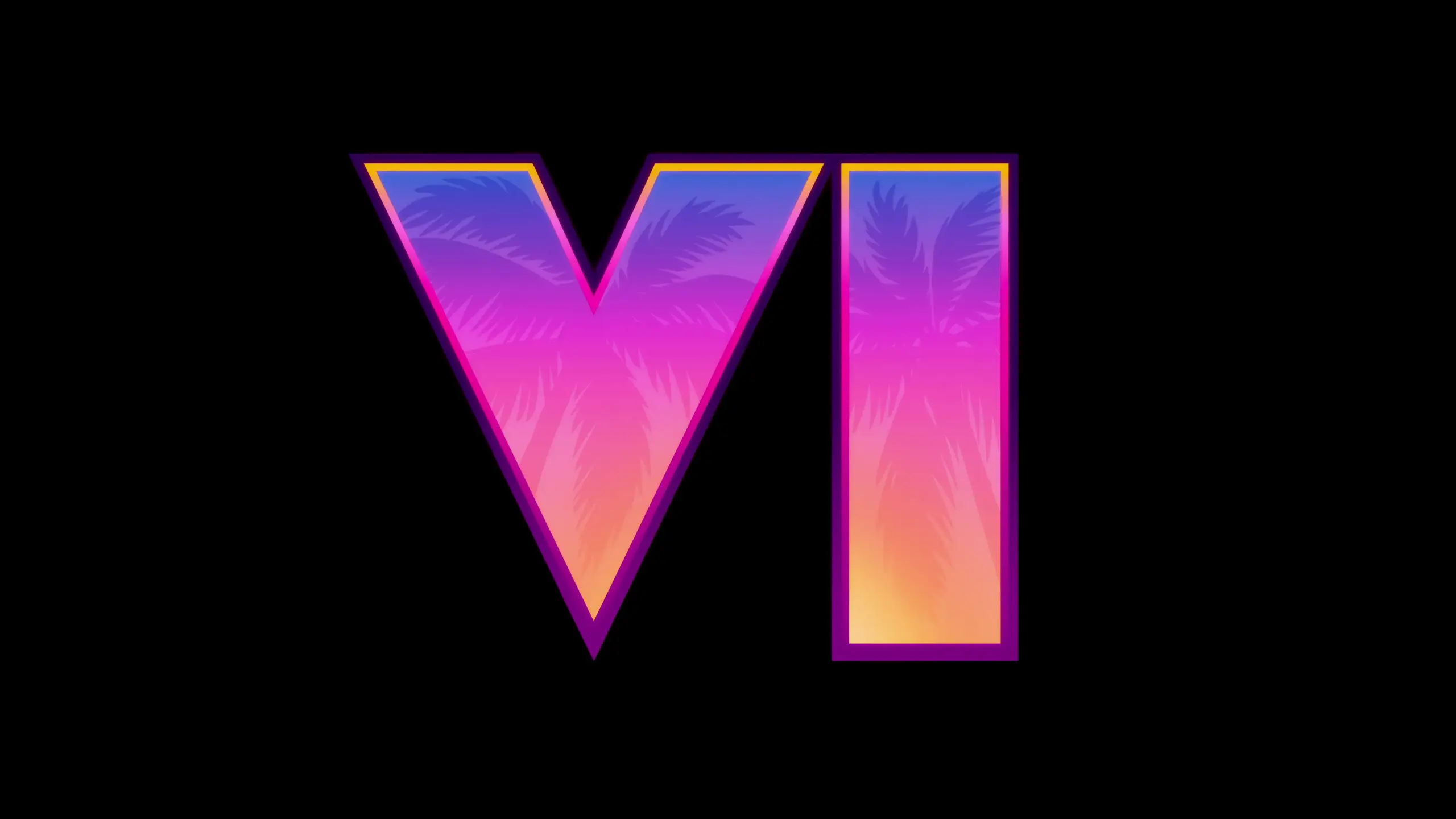
Quick answer: Rockstar’s public GTA VI site and artwork library show the official logo but do not name Pricedown Black, GTAArtDeco, Colophon, or any downloadable typeface as a formal logo credit. The files below are visual comparisons and site-owner-provided recreations, not official Rockstar font assets.
This guide now relies on Rockstar’s official GTA VI page and official artwork and wallpaper library for the logo reference. Rockstar’s Newswire release notice is the source for the November 19, 2026 launch date. None of those pages supplies a public typeface credit, so earlier certainty about exact creators and production files has been removed.
Preview GTA VI-style lettering alternatives
Pricedown is a familiar visual reference for the stacked Grand Theft Auto wordmark. The GTAArtDeco files are locally recorded, owner-provided recreations that can be used to explore art-deco and Vice City-inspired display lettering. Their presence here is not evidence that Rockstar authored, commissioned, or distributes them.
GTA VI-Style Font Preview
Visual comparisons and site-owner-provided recreations
Pricedown Bl | Third-party GTA-style comparison
GTA Art Deco Regular | Site-owner-provided visual recreation
GTA Art Deco Medium | Site-owner-provided visual recreation
GTA Art Deco Bold | Site-owner-provided visual recreation
GTA Art Deco Condensed Bold | Site-owner-provided visual recreation
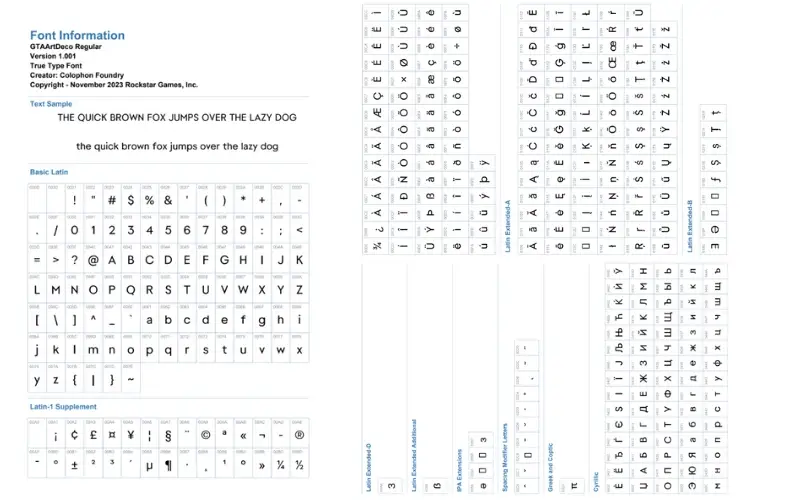
What the visual comparison shows
The official GTA VI mark combines a heavy stacked wordmark, a large Roman numeral, illustrated palm-tree detail, custom spacing, and a pink-to-purple sunset treatment. Some of those features are lettering or illustration decisions rather than properties of a font. A close alphabet can provide a starting structure, but it will not automatically reproduce the official lockup.
For an original retro-crime or coastal-neon title, separate the main wordmark from the numeral or subtitle, then choose licensed fonts that contrast in width and detail. Build your own gradient, silhouettes, and composition. Exact color values sampled from a compressed screenshot can vary, so this page no longer presents guessed hex codes as official brand specifications.
How to build a responsible inspired design
- Open Rockstar’s official artwork beside the preview as a visual reference.
- Type original wording in Pricedown and the art-deco alternatives at the same cap height.
- Create original symbols, spacing, colors, and illustration for public work.